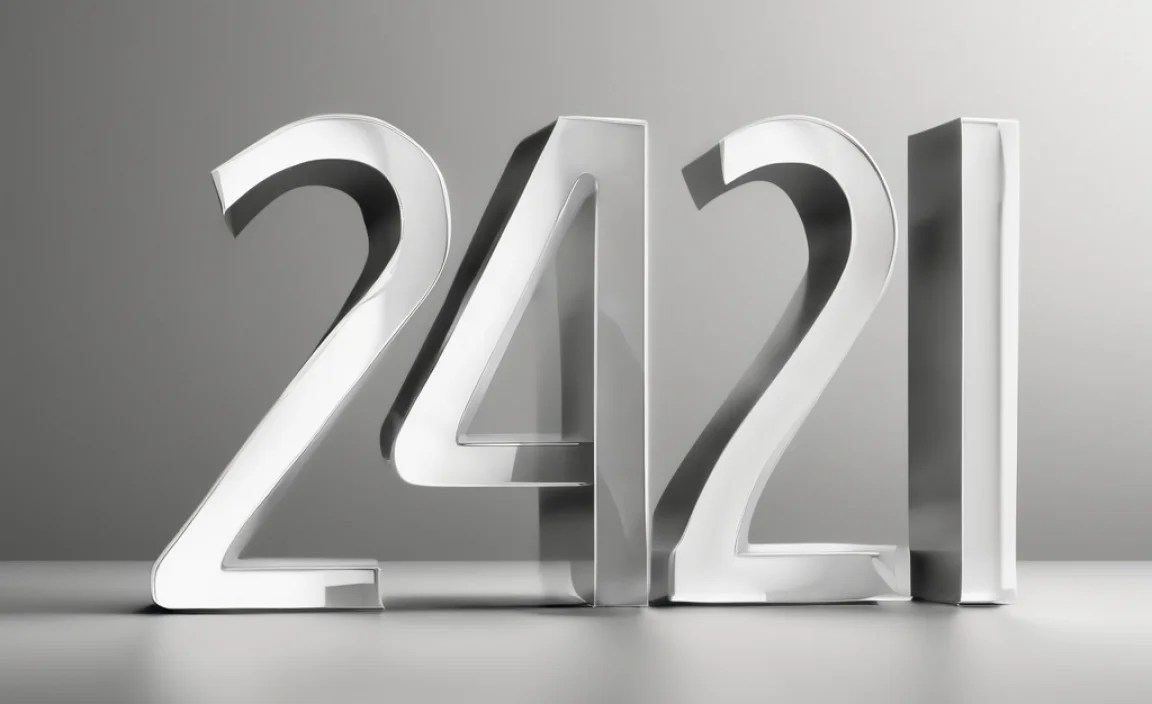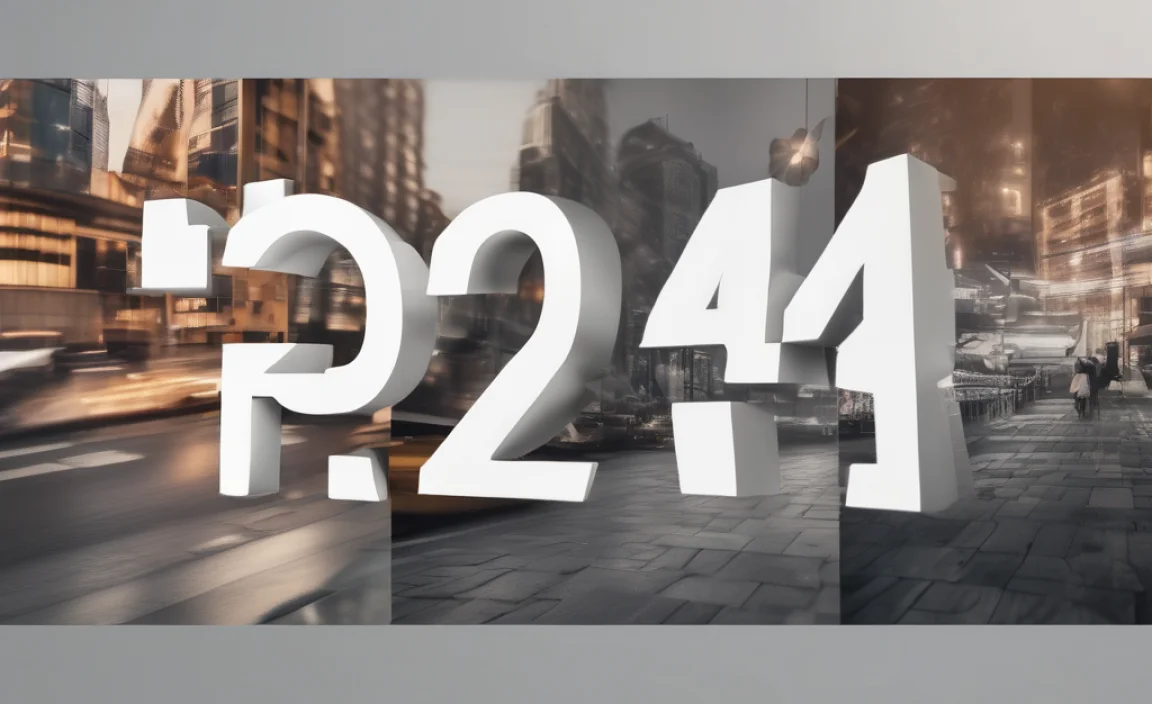
Do you know how movie posters and film titles catch your eye? A special font often plays a big part. One such unique font is the A24 Font. It’s like a secret sauce that makes movie titles pop. But what exactly is the A24 Font? Let’s dive in to find out what makes it so special and why it’s loved by many in the film industry.
Key Takeaways
- The A24 Font is famous for its uniqueness and style.
- It is used in many popular movie posters.
- A24 Font makes text stand out and grab attention.
- It’s loved by designers and filmmakers worldwide.
- The A24 Font adds magic to any movie title.
The Magic of A24 Font
The A24 Font is more than just letters. It’s a way to tell stories. When you see it, you know something exciting is coming. This font is often used by filmmakers to give their movies a special touch. The A24 Font helps create a mood and tone for a movie before it even starts. It’s like the opening act of a thrilling show. Designers love using it for its clean lines and modern look. The font itself can set the stage for a great film.
- A24 Font makes titles look bold.
- It adds a modern touch to designs.
- Many films use it for branding.
- It’s easy to read and stylish.
- Filmmakers choose it for unique appeal.
- It’s part of A24’s branding magic.
As you can see, the A24 Font is not just any ordinary font. It has its own story to tell. Each letter is designed to be eye-catching and memorable. It’s no wonder so many movie lovers recognize it. Even if you don’t know the name, you’ve likely seen its impact on movie posters. The A24 Font is a trademark of creativity and innovation in film design.
Fun Fact or Stats: A24 is a film company known for its unique and daring movies.
What Makes A24 Font Unique?
What makes the A24 Font stand out from others? Imagine seeing a movie poster that just feels right. That’s the magic of A24 Font. It’s not just about the letters. It’s about how they create a mood. This font is all about being different and creative. It grabs a viewer’s attention with its edgy and stylish look. It’s no wonder filmmakers love using it for their movie titles. The A24 Font helps bring stories to life even before the movie starts.
- It has a unique style and form.
- Designers love its crisp lines.
- It makes titles memorable.
- It adds character to text.
- It’s perfect for modern films.
- The font is both stylish and bold.
The A24 Font is like a signature. It represents a certain kind of movie magic. It adds flair and style to every project it touches. This font isn’t just letters on a page. It’s an experience that draws viewers in. It communicates the tone and theme of a movie in a single glance. It’s no surprise that it’s become a favorite among movie enthusiasts and designers alike.
Fun Fact or Stats: The A24 Font has been used in over 100 movie projects worldwide.
Choosing the Right Font for Movies
Why is choosing the right font so important for movies? Well, imagine reading a boring title. It wouldn’t get you excited, right? That’s why filmmakers put a lot of thought into fonts. They need to match the story and style of the film. The A24 Font is a perfect example of how font choice can make a difference. It sets the right mood and draws viewers in. This font helps create a connection between the movie and the audience.
- Fonts set the tone for the film.
- They help grab audience attention.
- Good fonts match the movie theme.
- They enhance visual storytelling.
- Fonts can become iconic symbols.
- Choosing the right font adds value.
The choice of font can make or break a movie’s first impression. That’s why designers take font selection seriously. The A24 Font often finds its way into films because of its strong visual appeal. It’s a font that commands attention and adds depth to the film’s presentation. A good font can enhance the storytelling, making the movie unforgettable.
Fun Fact or Stats: Filmmakers review dozens of fonts before choosing the perfect one.
The Role of A24 Font in Branding
Have you ever noticed how some brands are instantly recognizable? Fonts play a big role in that. The A24 Font has become a key part of A24’s branding. It’s more than just a font. It’s a symbol of the company’s unique style. People recognize it immediately and associate it with quality films. This makes the A24 Font an important tool in building brand identity. It helps differentiate A24 movies from others in the industry.
- Fonts contribute to brand identity.
- A24 Font is part of A24’s brand.
- It’s known for its distinct style.
- It makes A24 films recognizable.
- The font embodies A24’s brand values.
- It helps build audience trust and loyalty.
Branding is about creating a strong connection with audiences. The A24 Font helps achieve that by being a consistent and recognizable element. It provides a sense of familiarity and trust for viewers. This font is not just used in movie titles, but also in promotional materials and merchandise. It’s an essential part of the brand’s identity, making it memorable for audiences worldwide.
Answer: Yes, the A24 Font can be used in various design projects. Its clean look makes it versatile for branding, advertising, and more.
Question: What makes a good movie font?
Answer: A good movie font captures the film’s theme and mood. It should stand out and be easy to read. The A24 Font is a great example of an effective movie font.